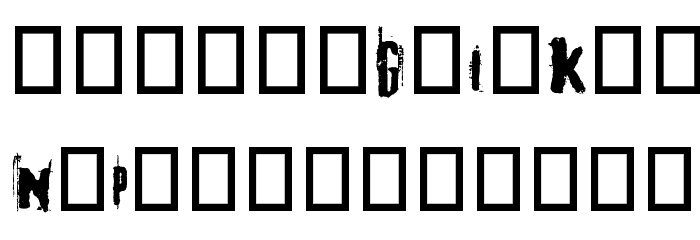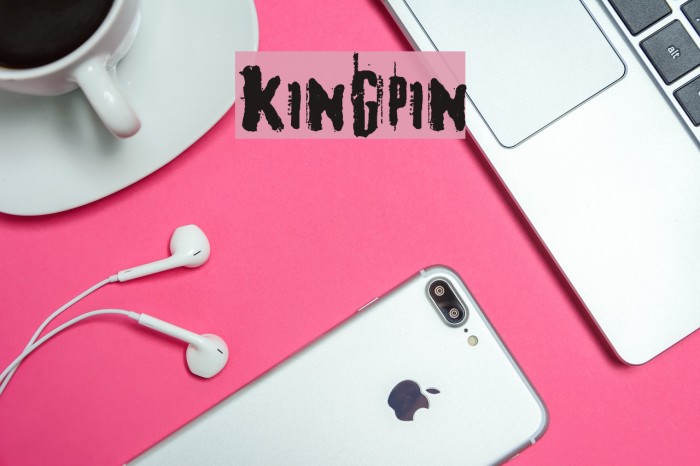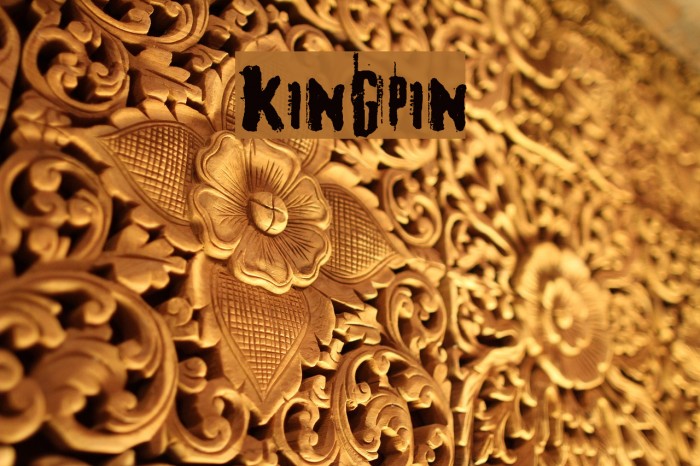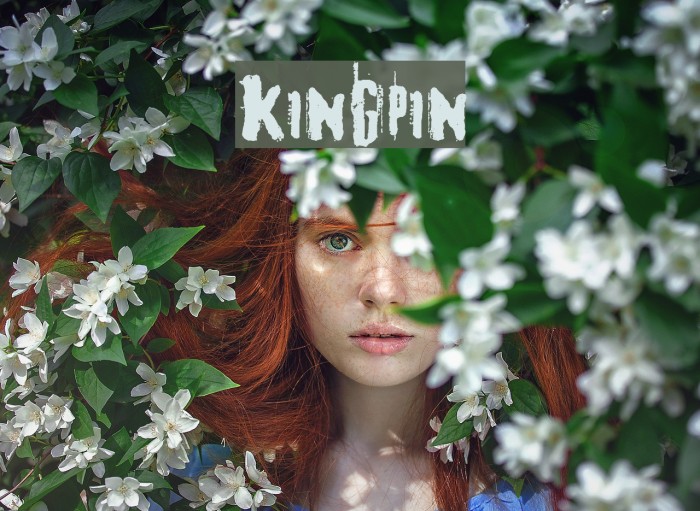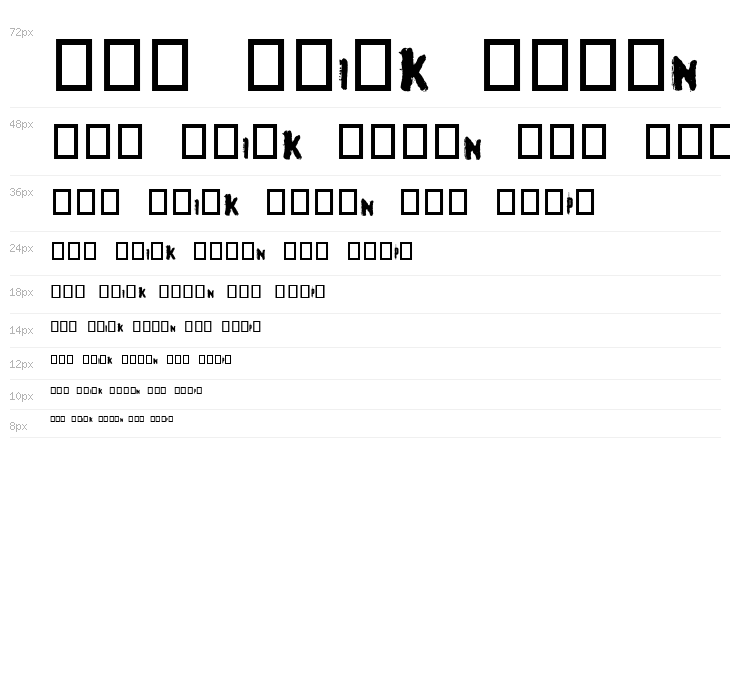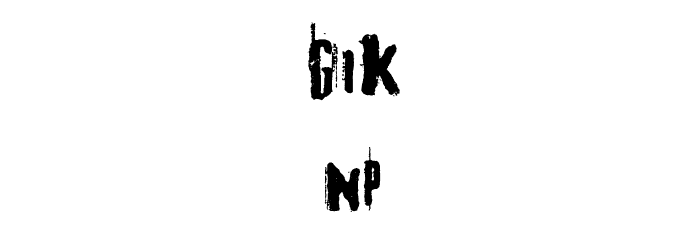
kingpin Font
kingpin Description
This font features a distressed, grunge style with a textured appearance that gives it a rugged and worn look. The characters are bold and impactful, with irregular edges and a slightly chaotic feel. This style is reminiscent of urban street art or vintage posters, adding a sense of raw energy and authenticity. The uppercase and lowercase letters maintain a consistent design, while the numbers and special characters follow the same aesthetic, ensuring a cohesive look across all text. The font's unique style makes it stand out, ideal for projects that require a bold statement.
| Overall Style | Grunge, Urban, Vintage |
| Proposed Projects | Ideal for album covers, posters, streetwear branding, or any project needing an edgy, urban feel. |